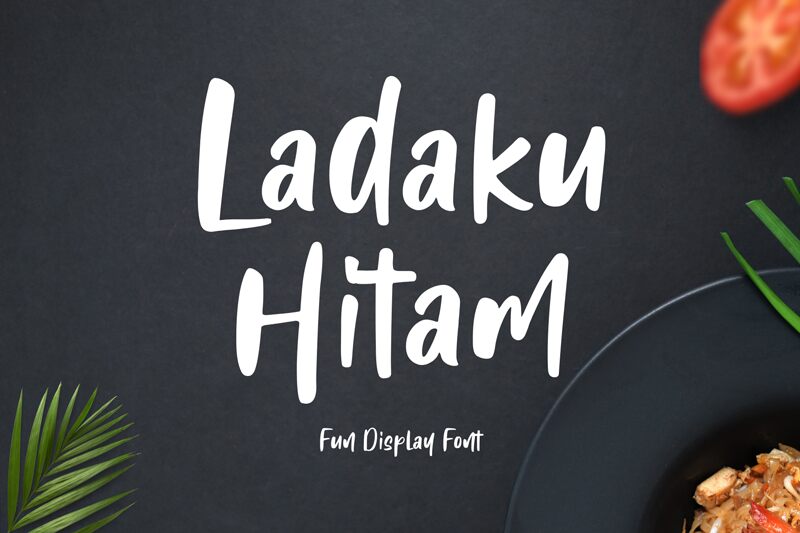
Ladaku Hitam, crafted by Creavibes Design, embodies a handwritten aesthetic that exudes a sense of personal touch and warmth. This font captures the spontaneity and expressiveness of human script, its fluid and varied stroke widths imparting an organic feel. Striking yet intimate, Ladaku Hitam could effortlessly bring character to invitations, branding, and editorial designs where a hint of individuality is desired. Its casual elegance makes it particularly suited for projects that benefit from a handmade impression, such as boutique packaging or artisanal product labeling.
With Ladaku Hitam, designers can infuse their work with the charm of handcrafted lettering without sacrificing readability or style.